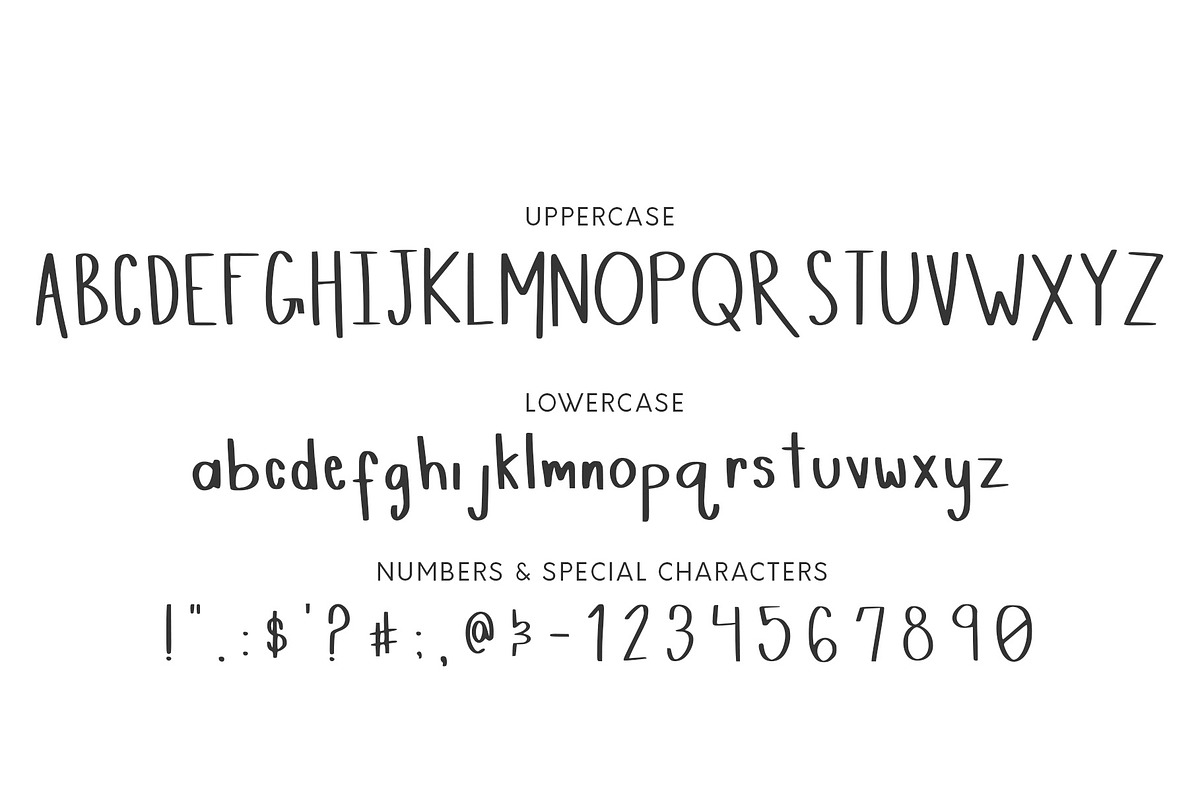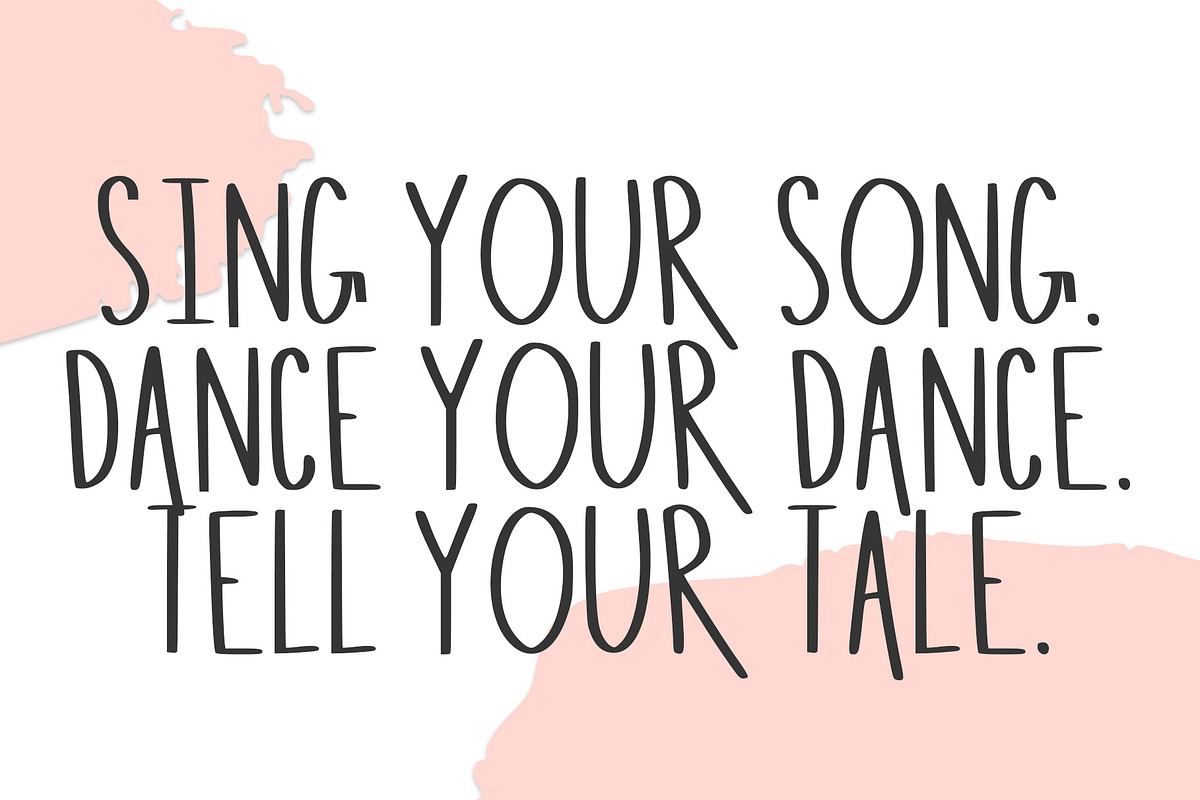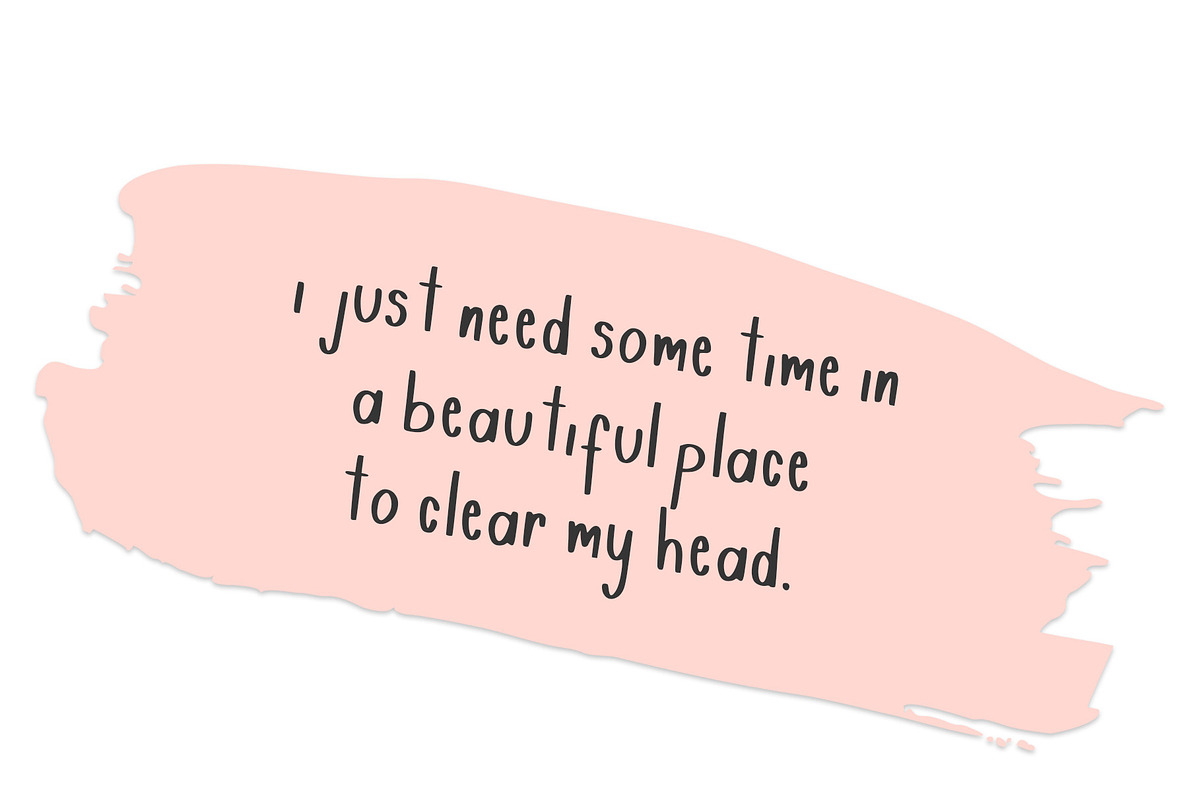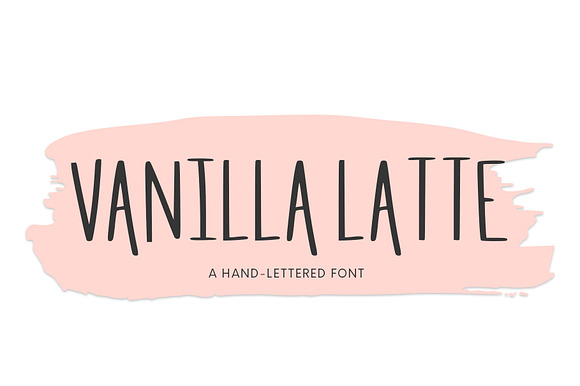
Vanilla Latte, A Hand-Lettered Font
Introducing Vanilla Latte! A clean and simple sans serif typeface. Perfect for all sorts of graphic design projects. Including web design, branding, stationery design, logos, banners and more!
-Uppercase alphabet -Lowercase alphabet -Numerals: 0-9 -Speciality characters: ! : $ - " # ; @ . ? & ; '